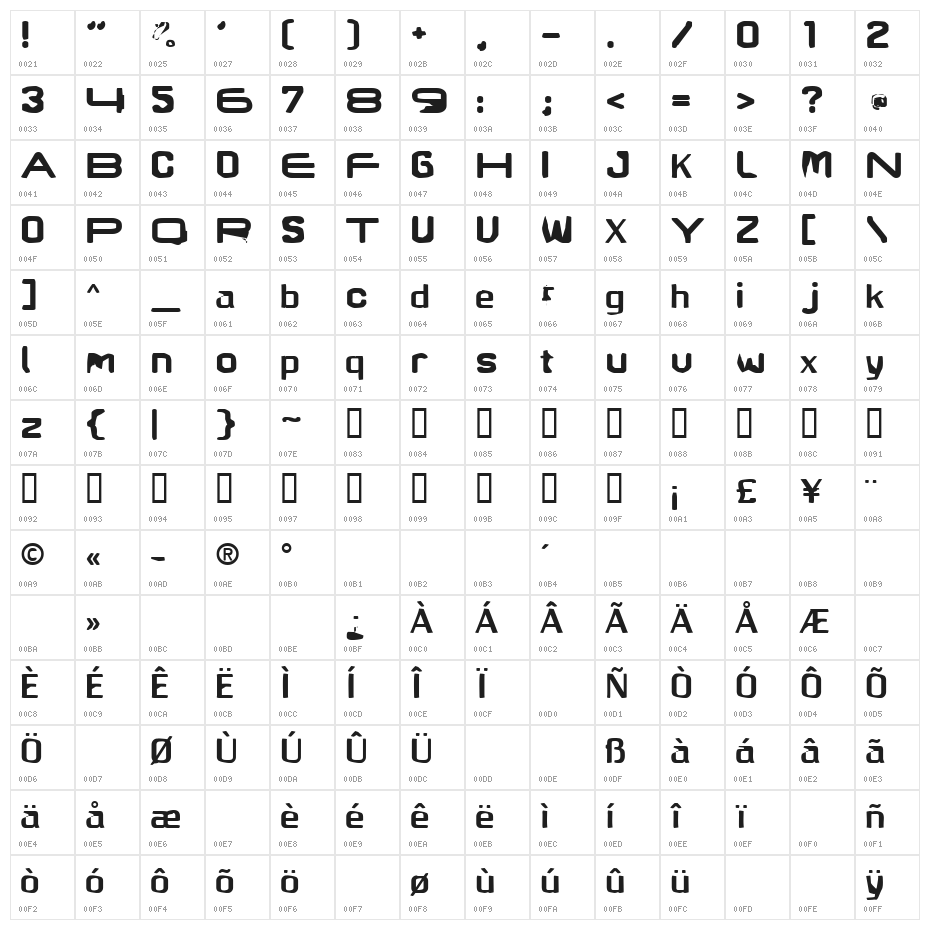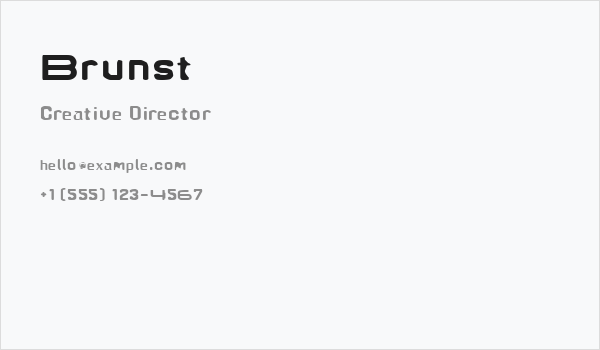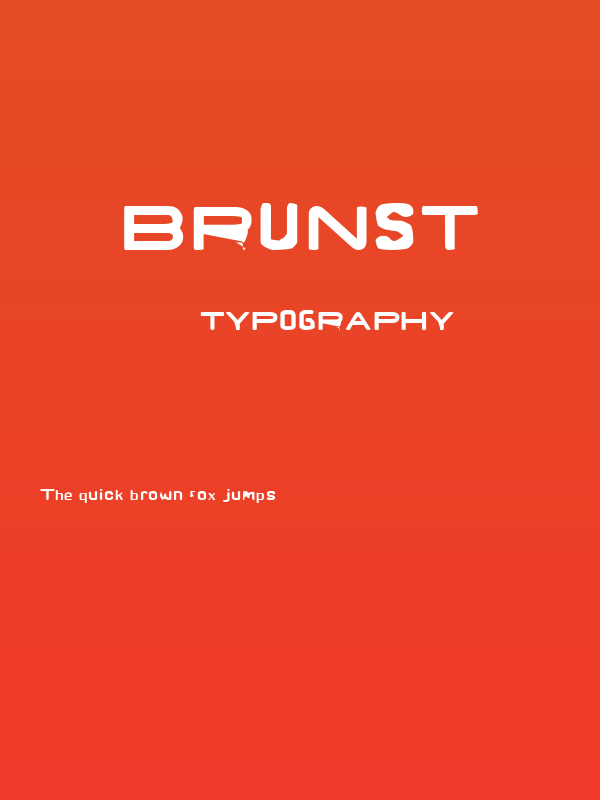
Brunst Font
Brunst Description
This font features a bold, geometric style with a modern and slightly futuristic aesthetic. The characters are constructed with thick, uniform strokes, giving them a strong presence. The uppercase letters have a blocky appearance with rounded edges, while the lowercase letters maintain a similar structure but with a more compact form. The numerals are consistent with the overall design, offering a clear and bold look. Special characters are uniquely styled to match the font's distinctive appearance, making it suitable for attention-grabbing designs.
| Proposed Projects | Ideal for branding, posters, headlines, and any design requiring a strong, modern look. |